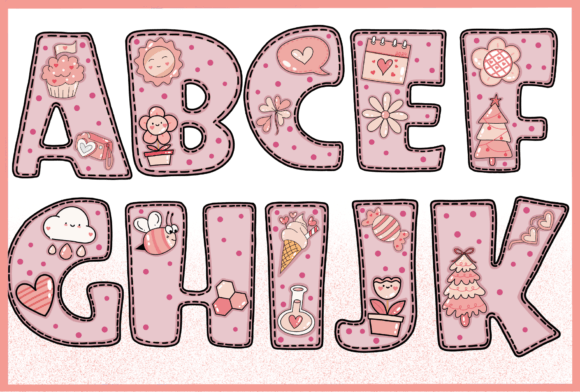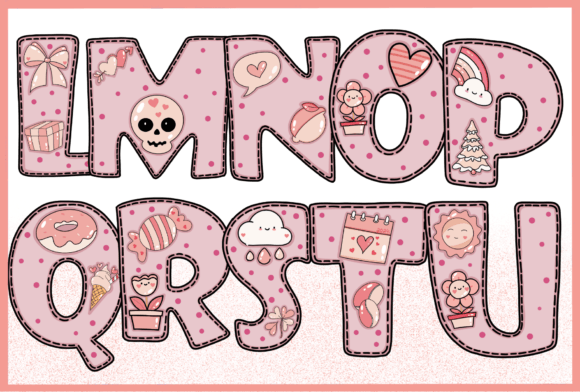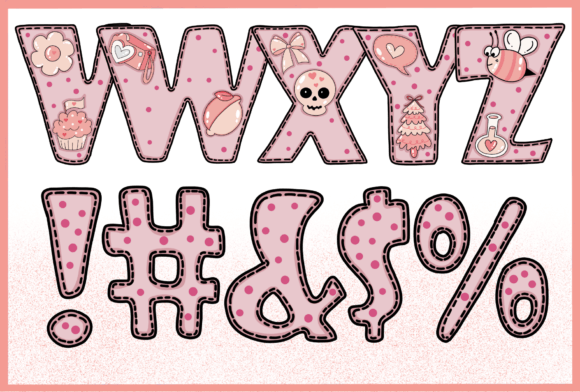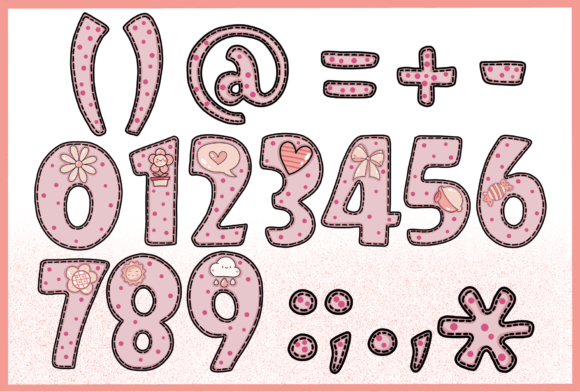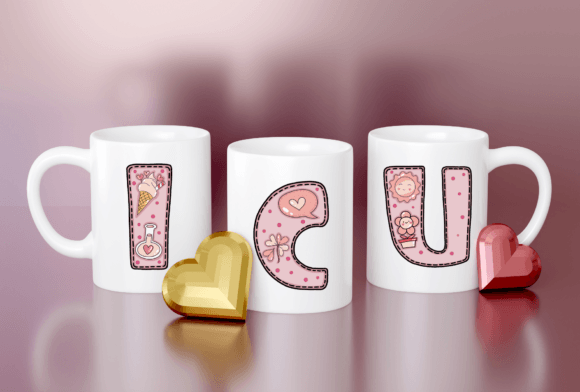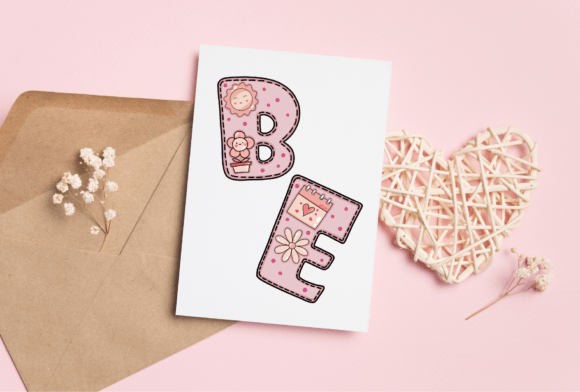
Introduction to Lovely Cutie Font Font
Fonts play a crucial role in design, and the Lovely Cutie Font font is a typeface that brings both character and versatility to any project. Whether you’re working on a branding project, a website, or a print design, the Lovely Cutie Font font offers a unique style that can elevate your work.
Valentine’s font “Lovely Cutie” is so cute for this season, is a delightful burst of vibrant hues perfect for adding a playful touch to your designs.
Key Features of Lovely Cutie Font Font
Why Choose Lovely Cutie Font Font?
The Lovely Cutie Font font is more than just a typeface – it’s a design tool that helps you communicate your message with style and clarity. Its unique character set and versatile design make it suitable for a wide range of applications, from elegant invitations to bold headlines.
With its carefully crafted letterforms and balanced proportions, the Lovely Cutie Font font ensures readability and visual appeal across all mediums.
What makes Lovely Cutie Font font special?
The Lovely Cutie Font font stands out with its unique design, exceptional readability, and versatility across various design applications.